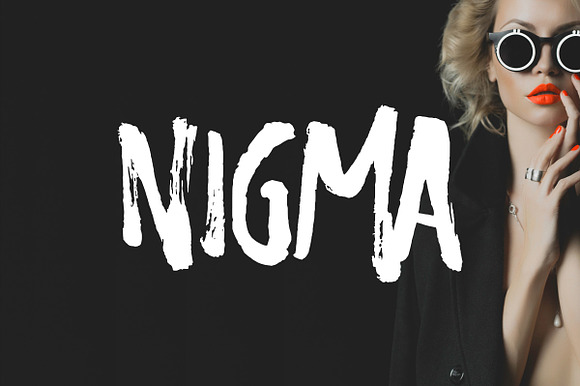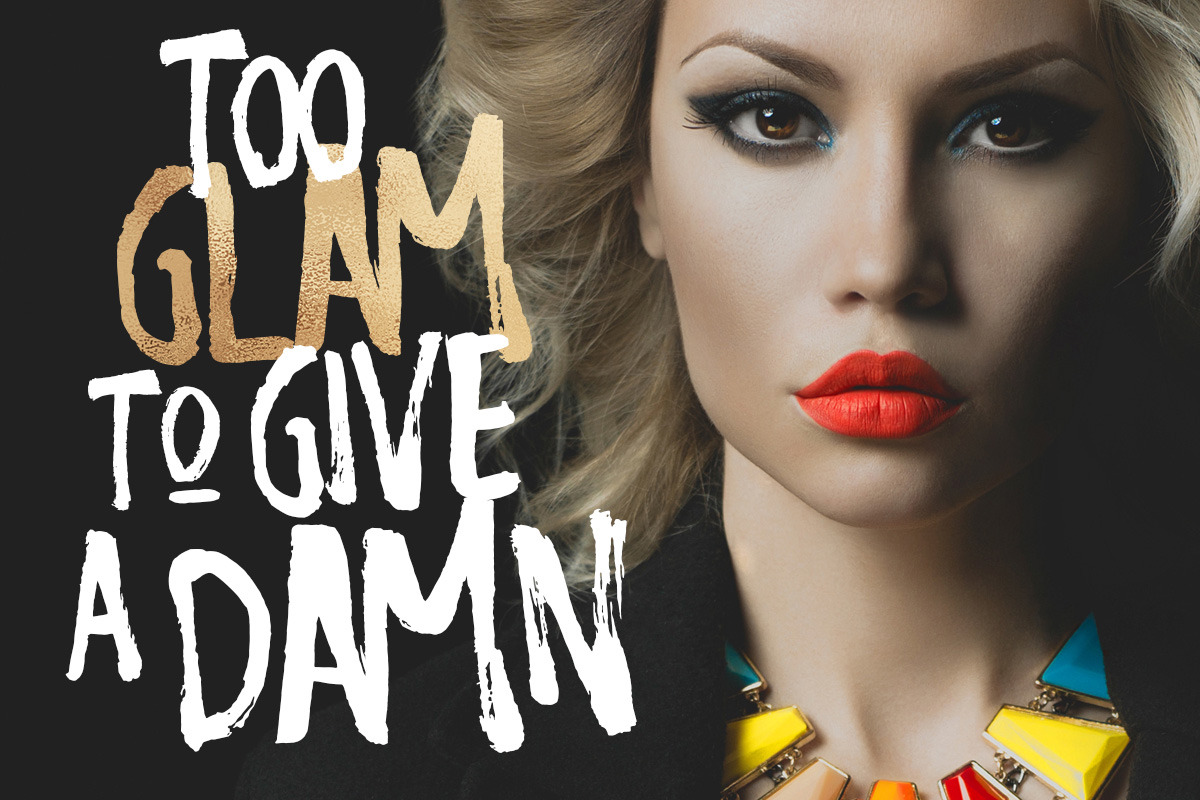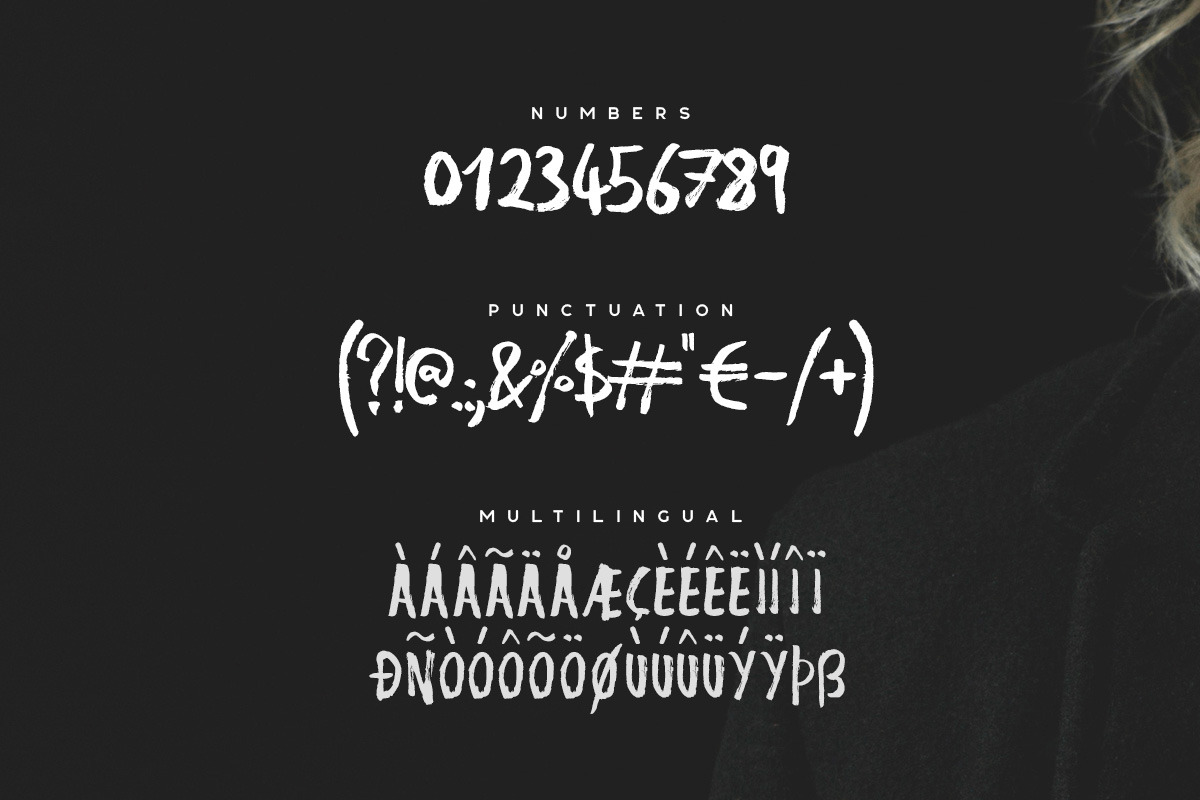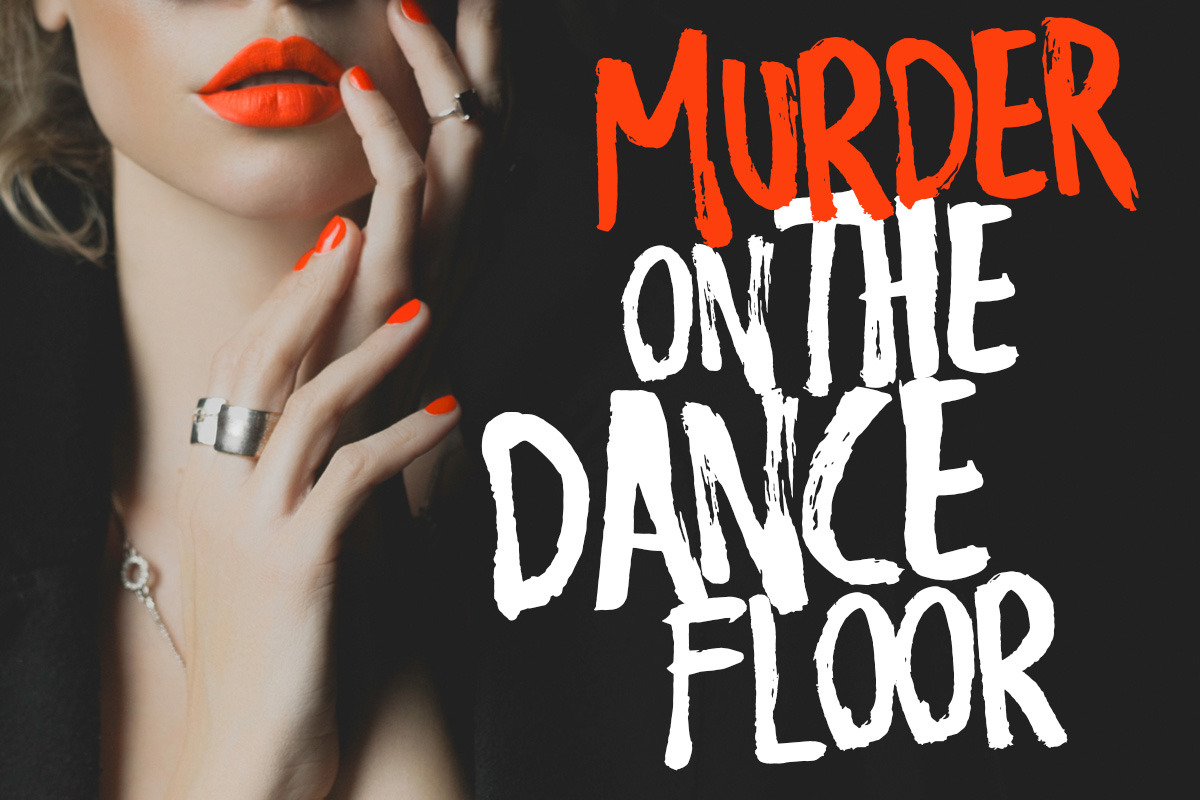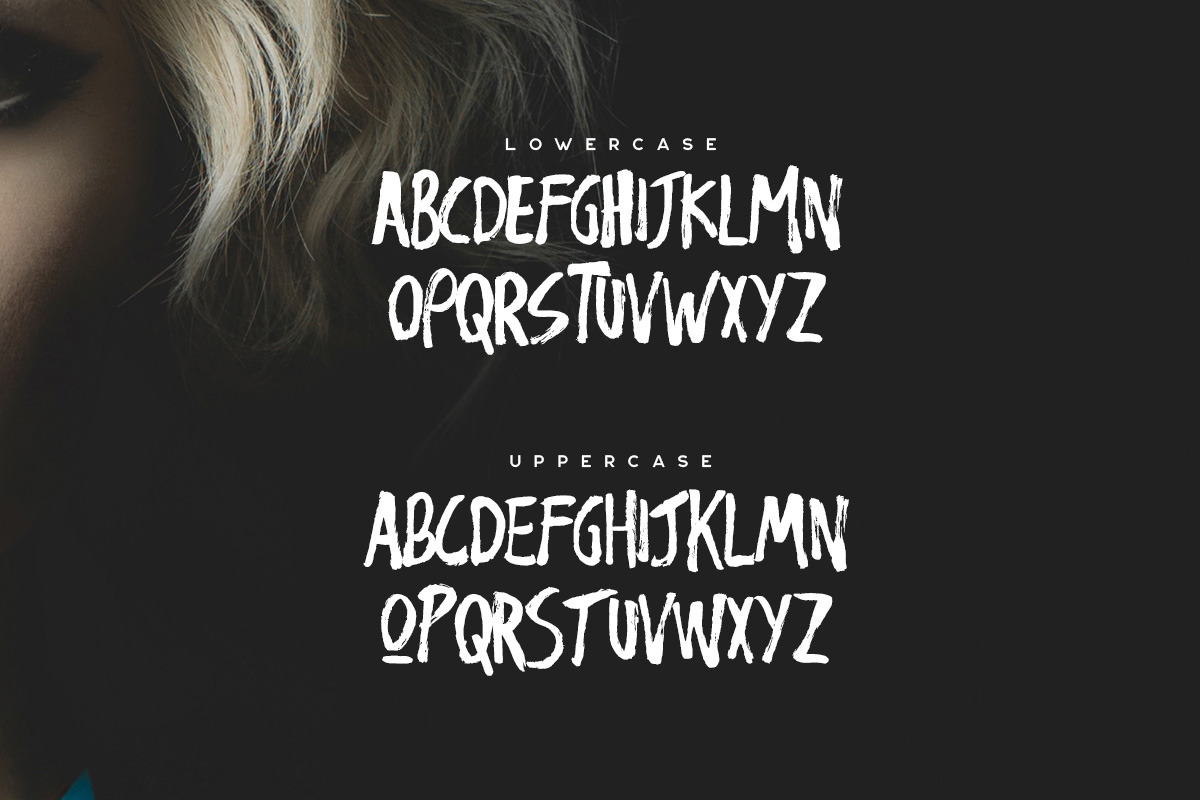
Nigma - Brush Font
Nigma is a handmade brush font with alternate letters. It includes multiple uppercase letters, numbers, punctuation and multilingual features. The boldness and the roughness of the font makes it great for quotes and titles.
Toggle caps lock to use the alternate versions of the letters.